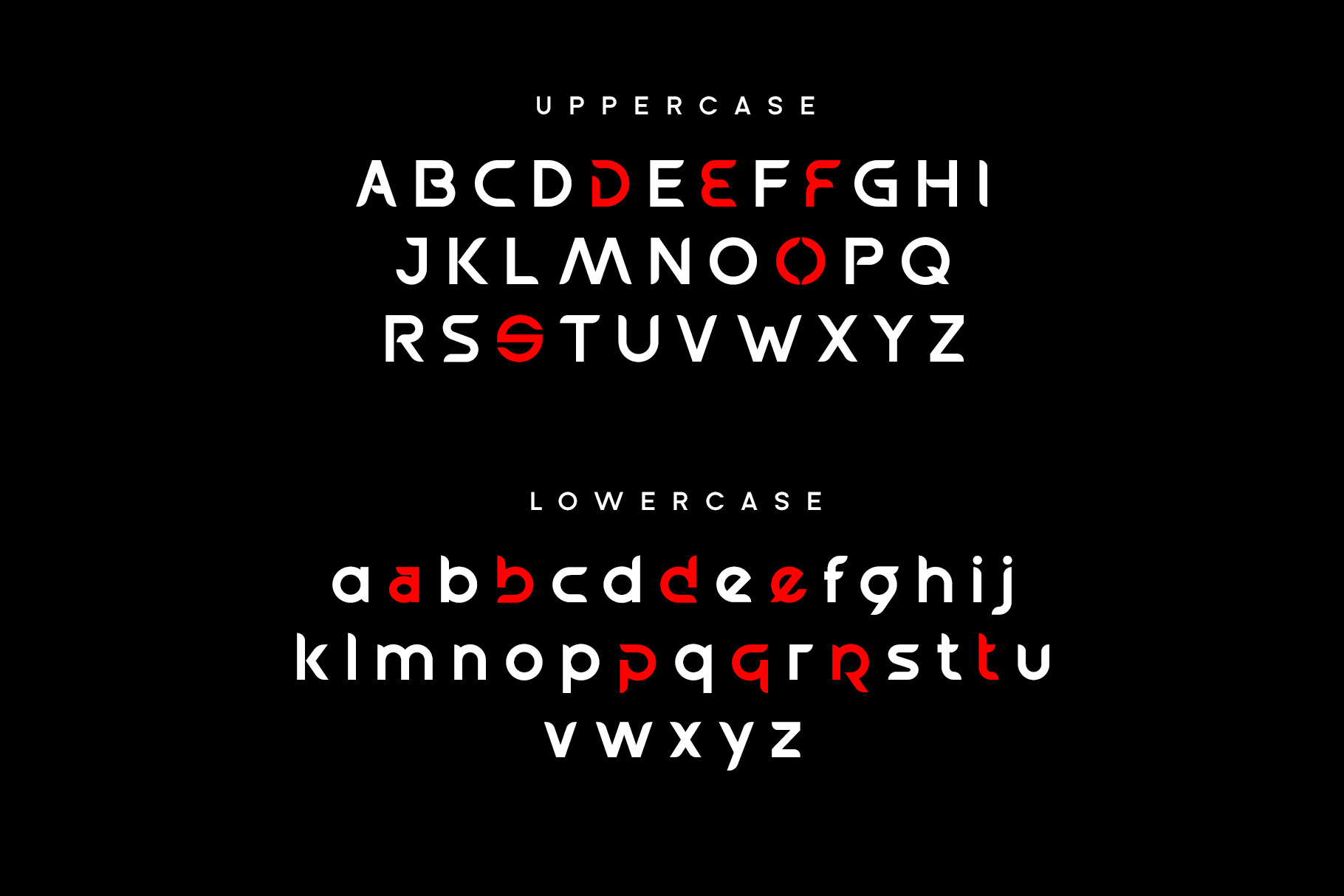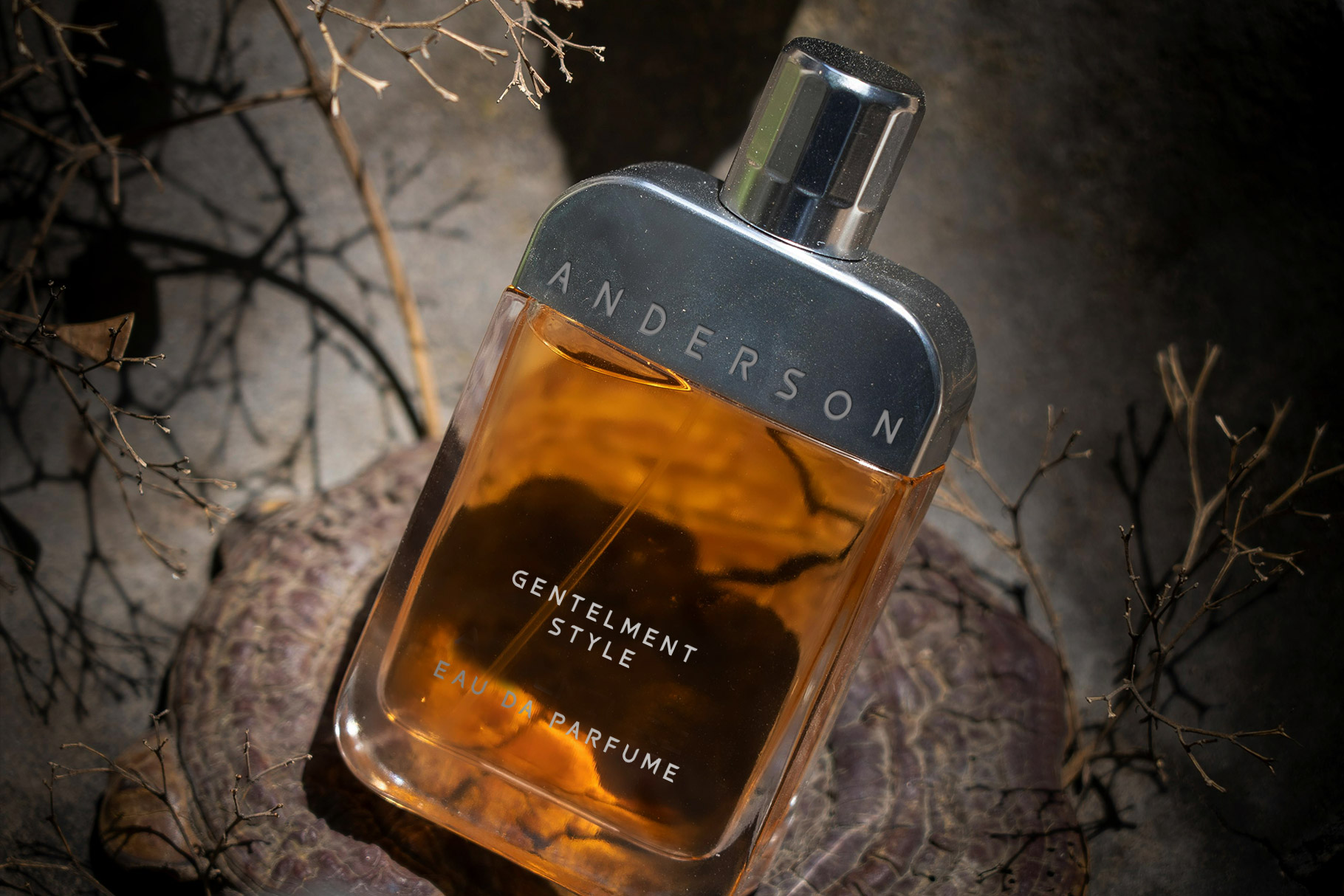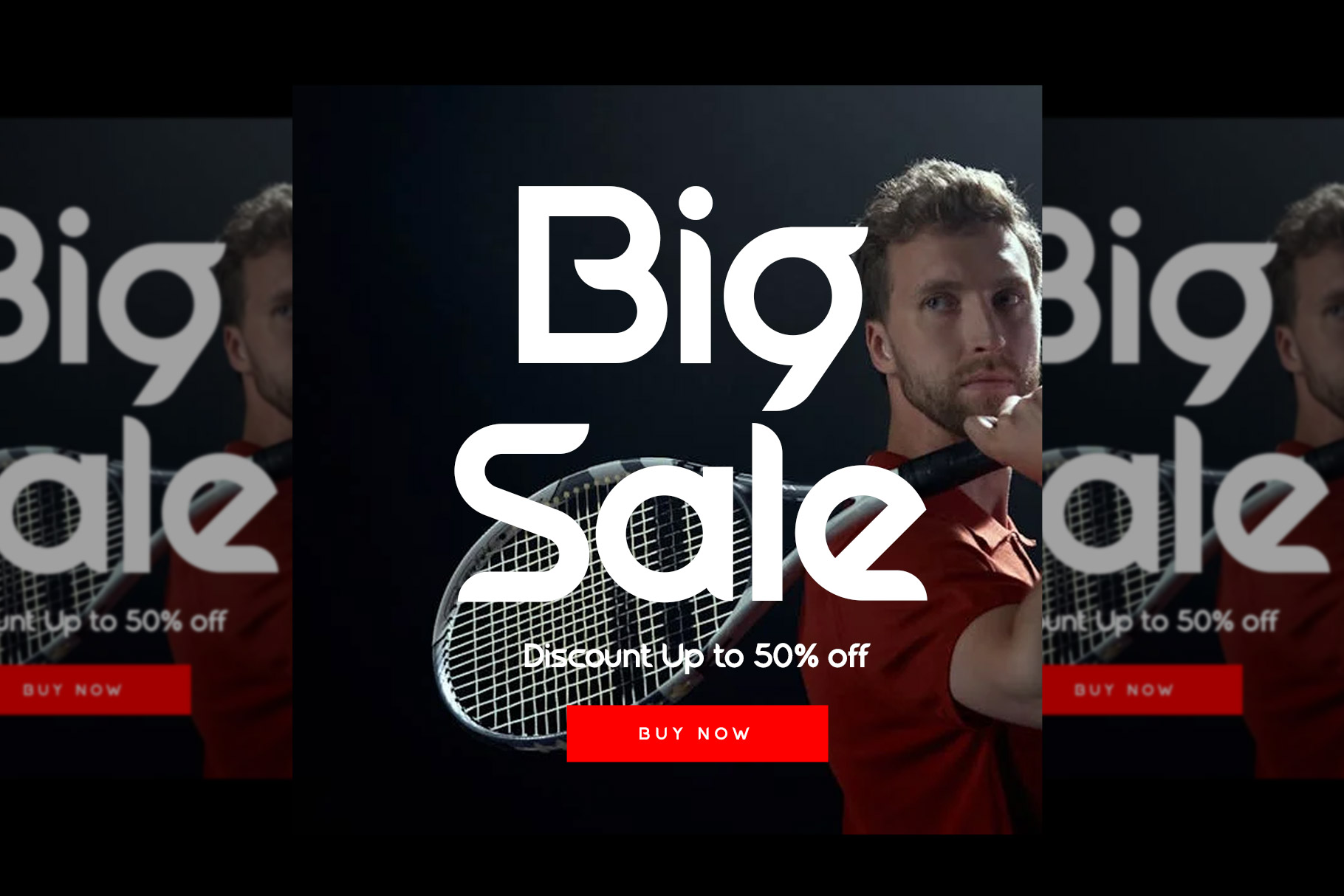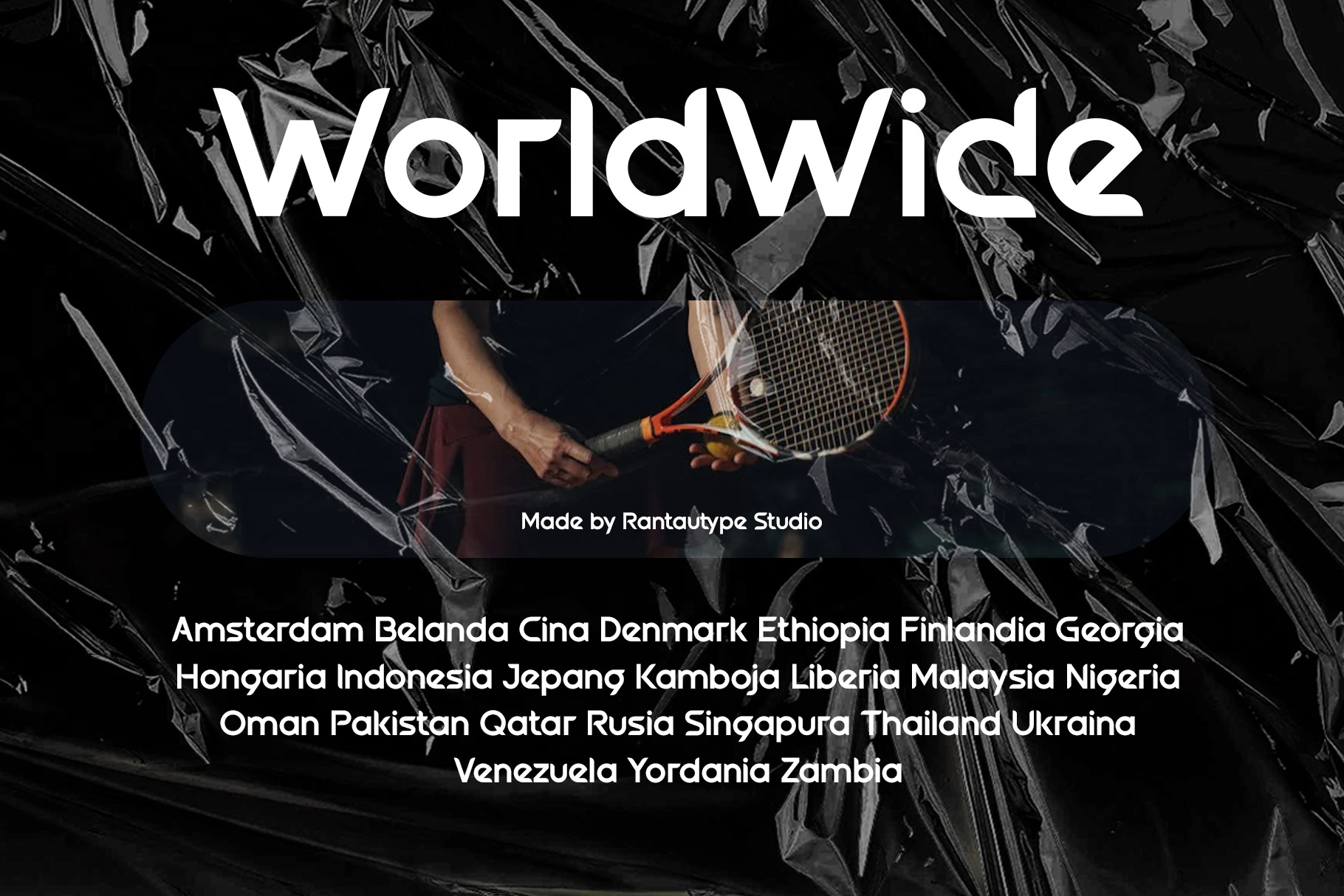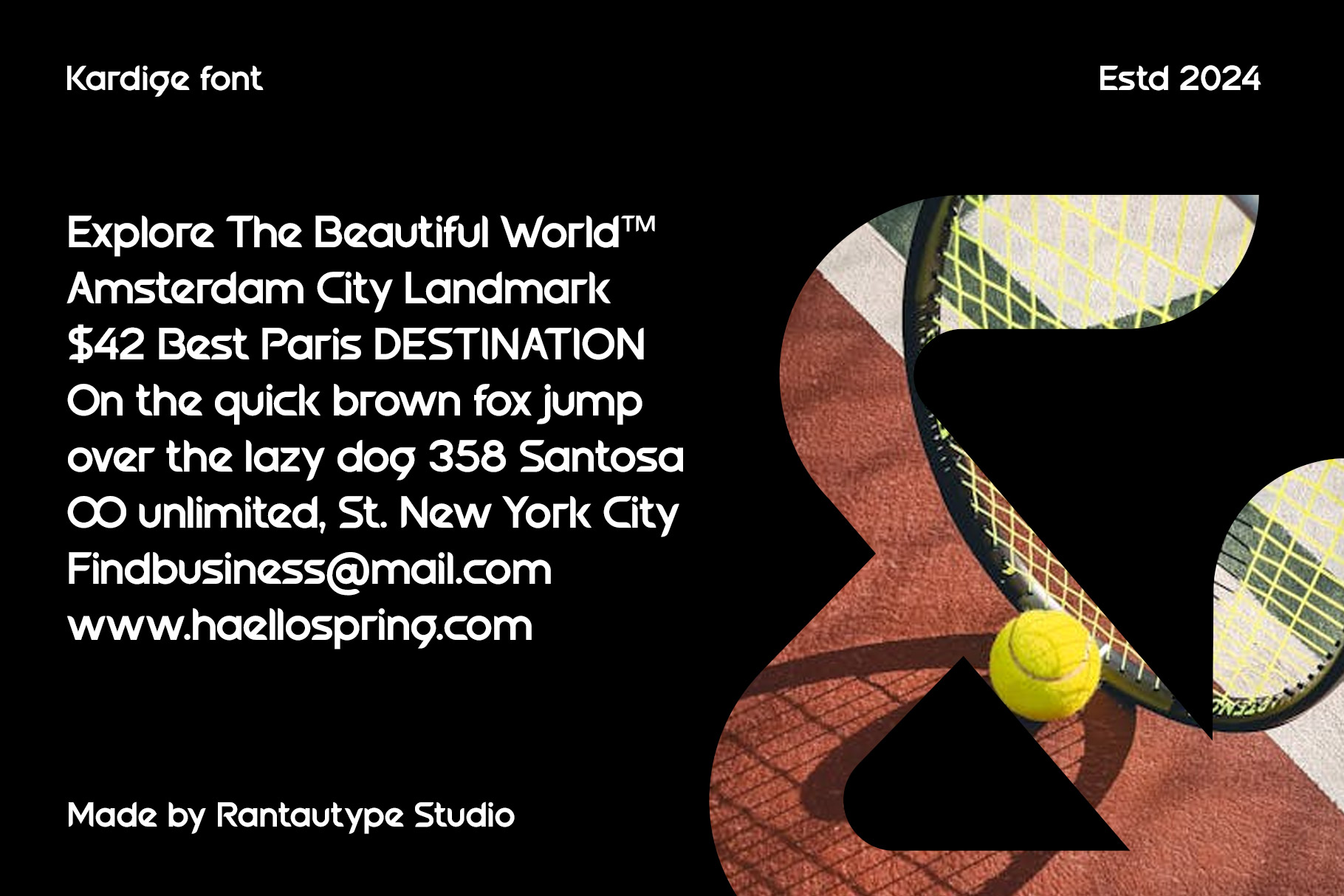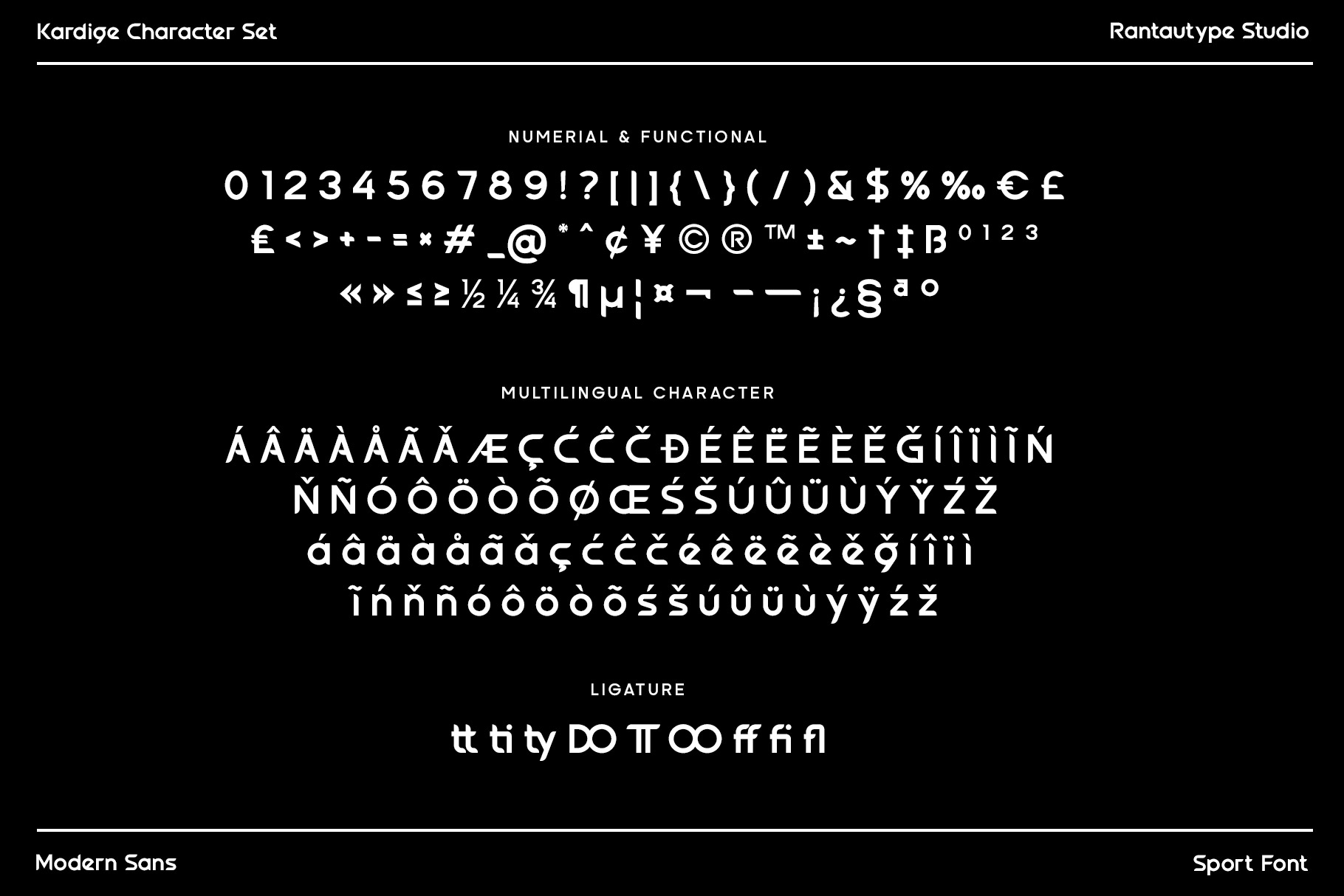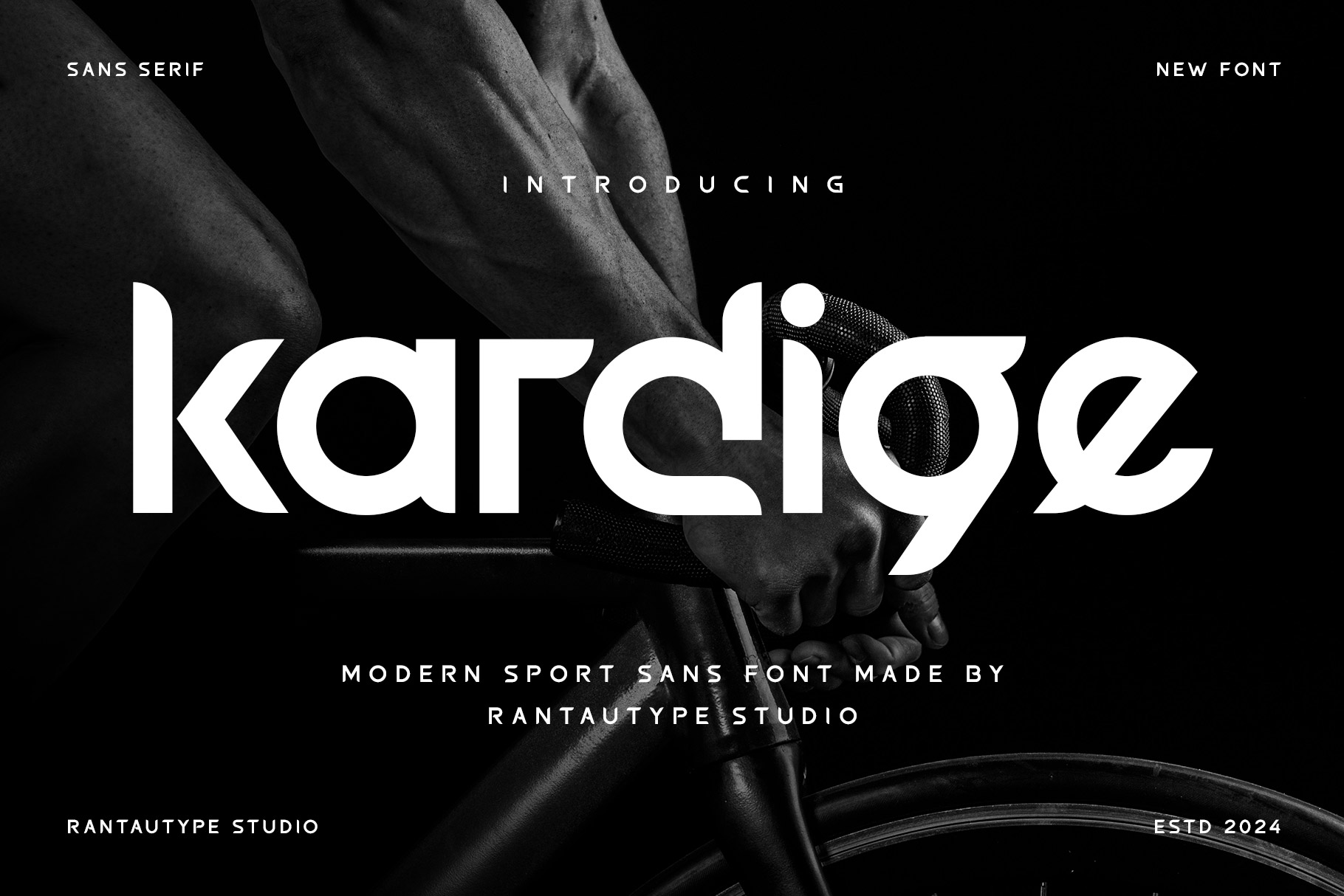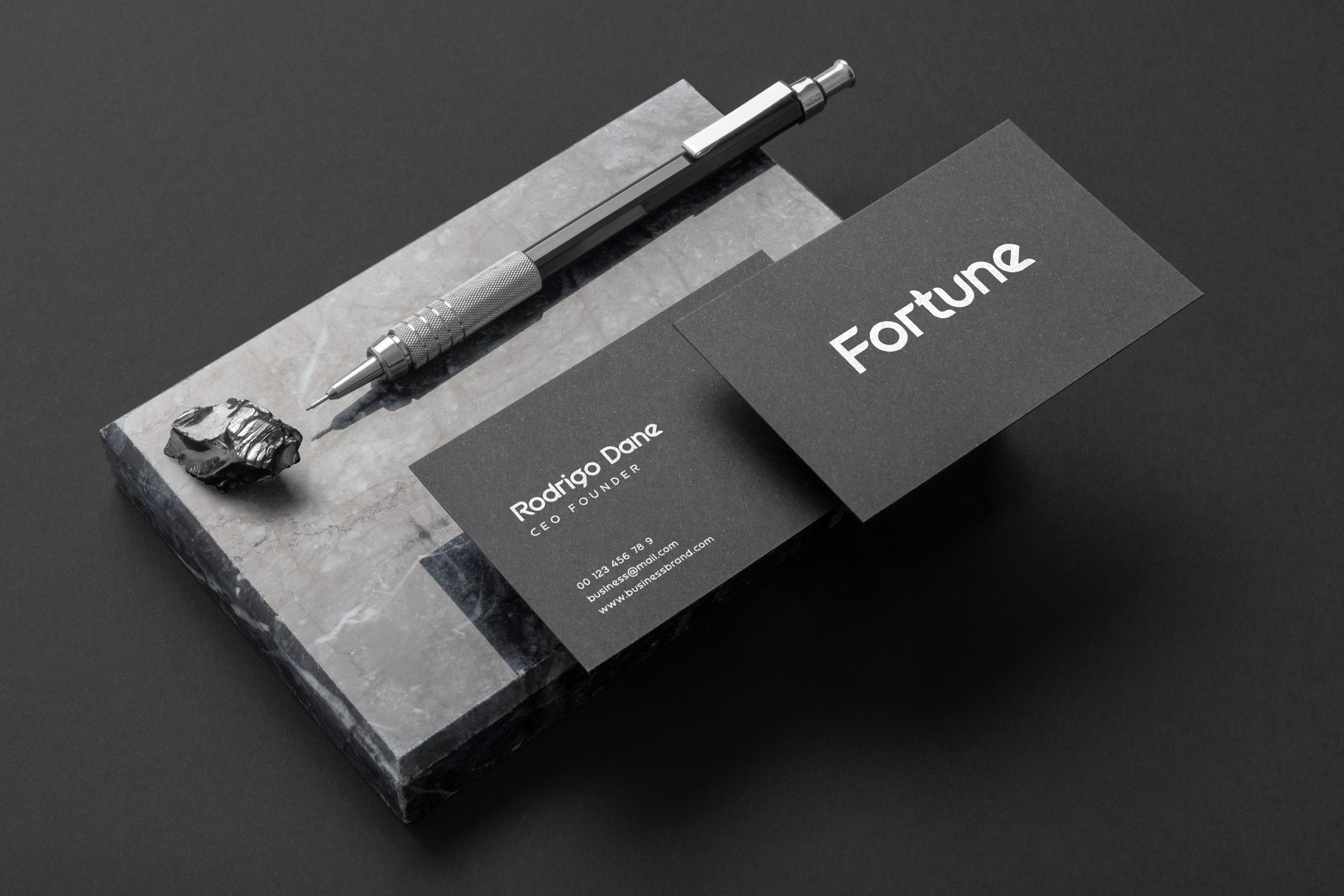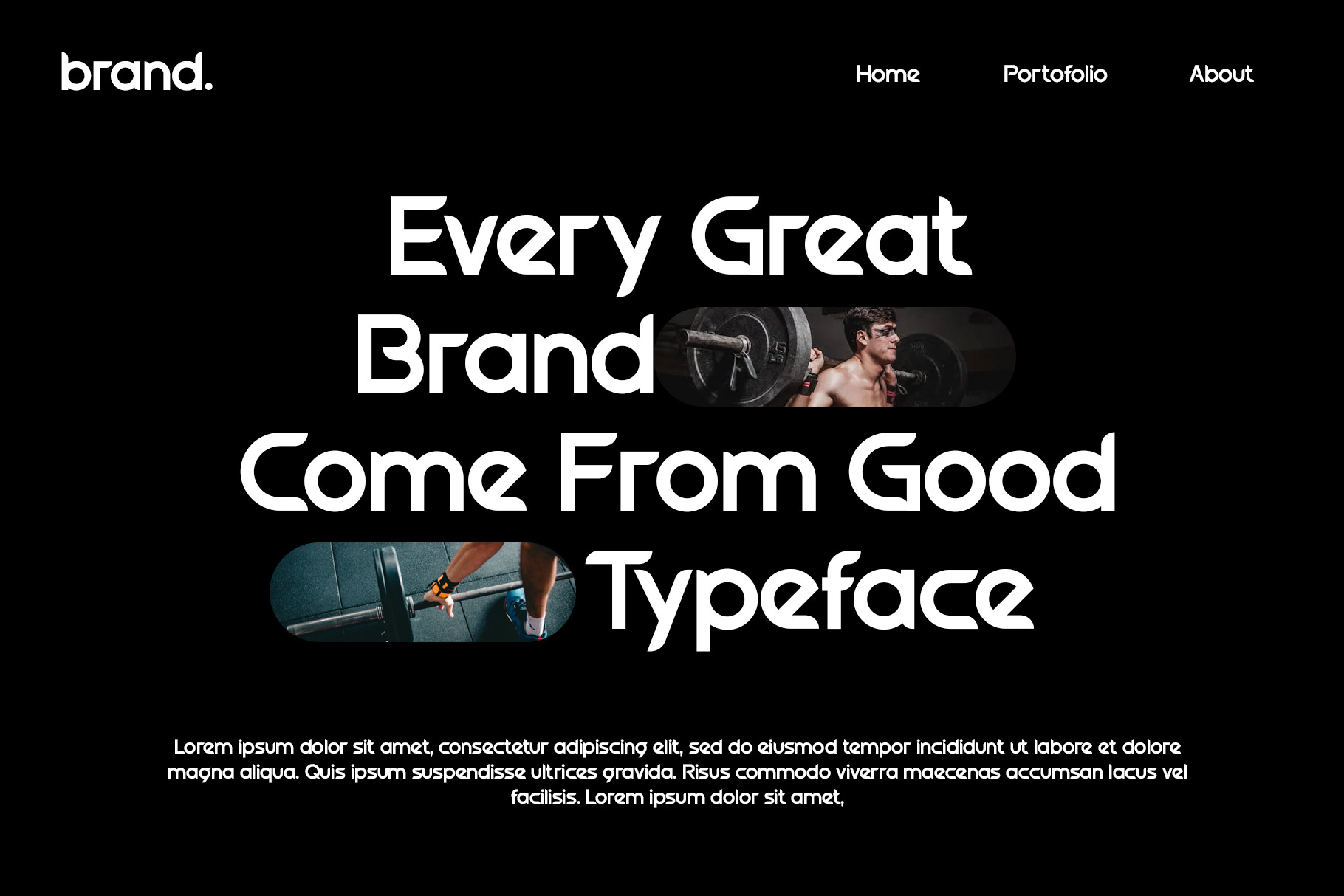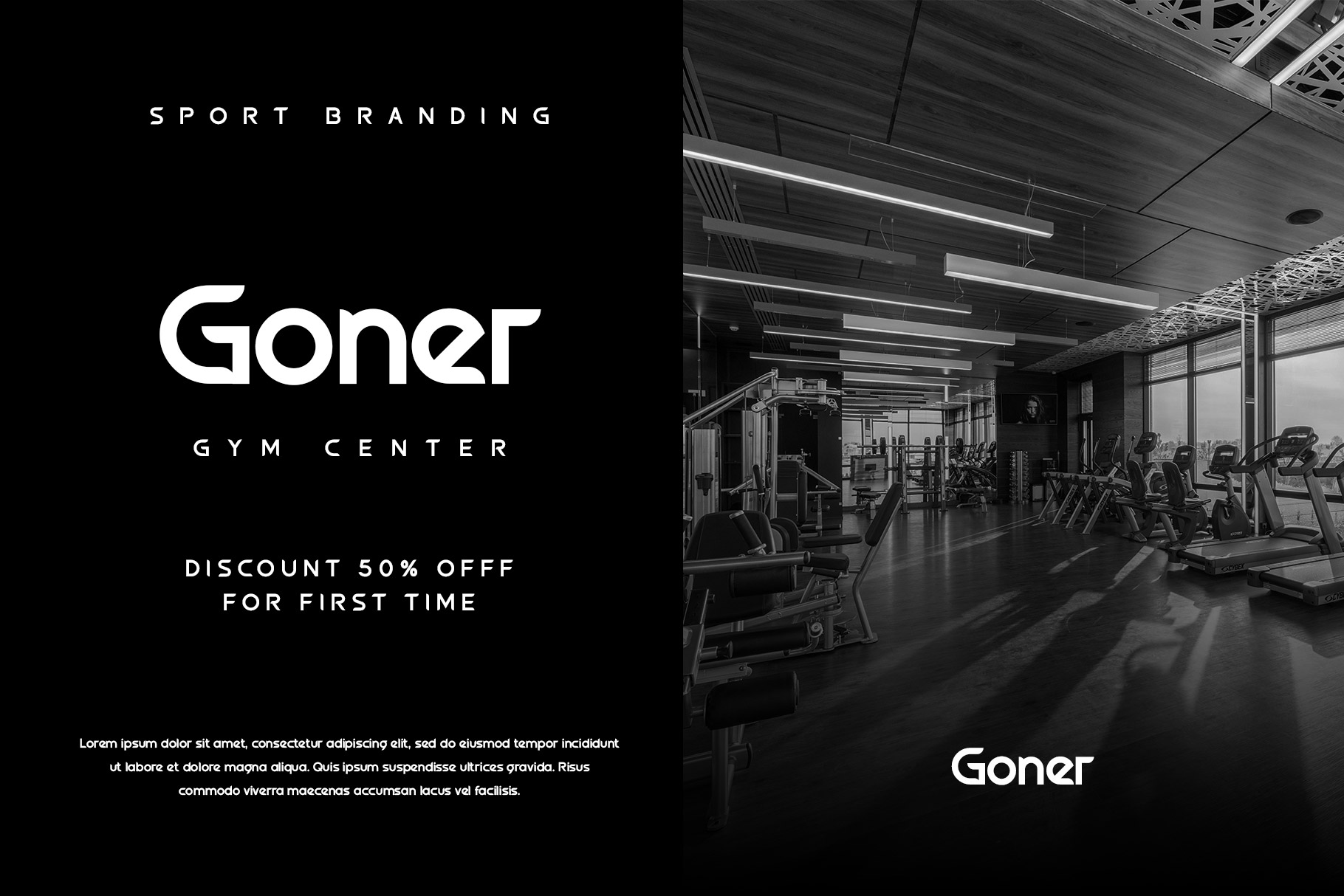
Kardige Modern Sport Sans Font
Kardige is modern sport sans serif font insprire by modern atletica visual design. Kardige bring clean interpretation of sport with unique shape make your design project more stand out!. We keep this font look modern, minimalist, sporty and elegant.
Kardige is a perfectly choice for any creative endeavor, chic, lifestyle design such as logotype, advertisements, watermark on photography, stationery, branding project, display and magazine, invitation, corporate brand, product design, label, business project and many other project with modern touch.